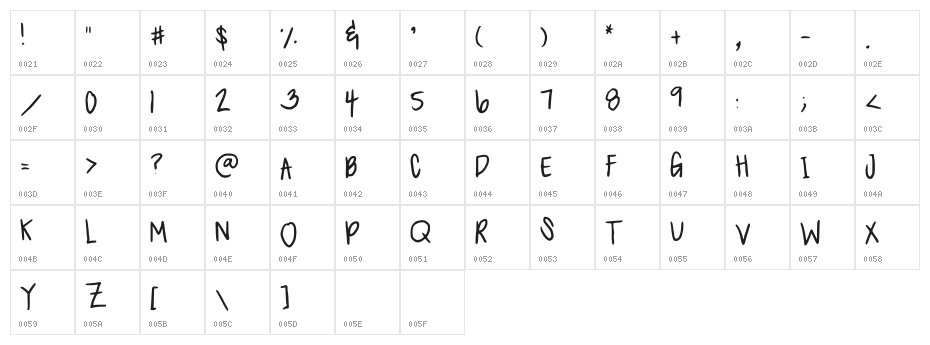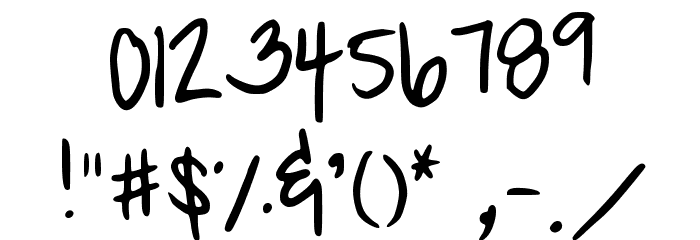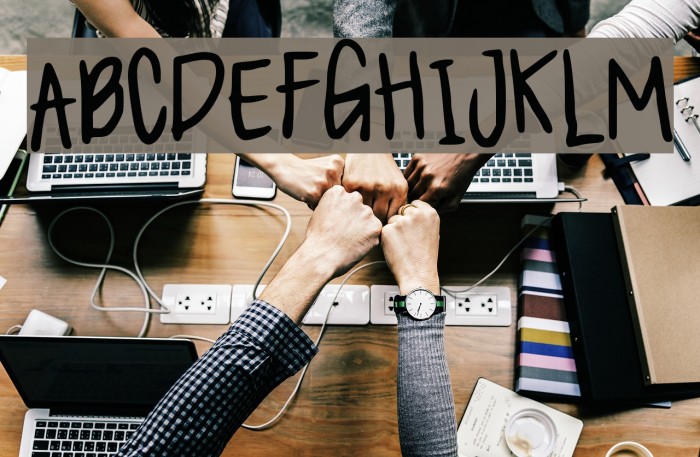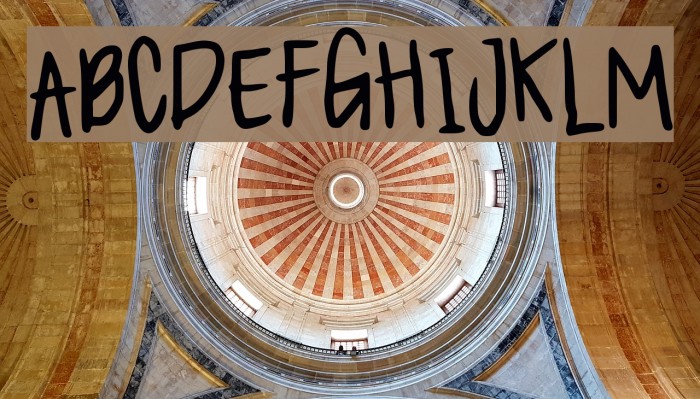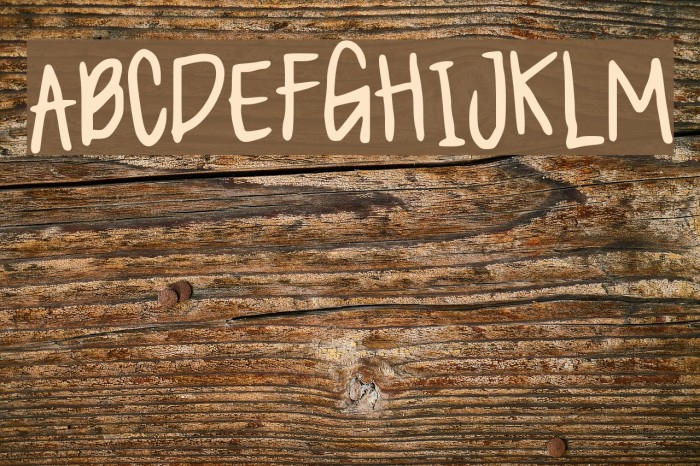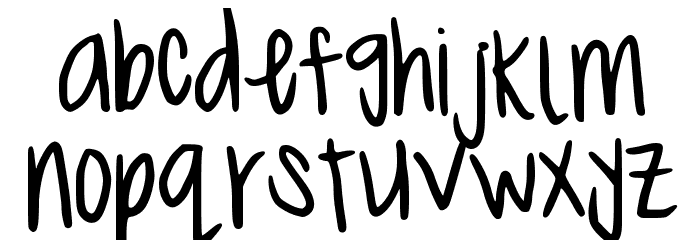
MeganHand Font
MeganHand Description
This font exudes a playful and informal vibe, characterized by its handwritten style that mimics casual penmanship. The letters are slightly irregular, adding a touch of authenticity and charm. The strokes are smooth and fluid, with a consistent thickness that maintains readability while conveying a relaxed tone. The uppercase and lowercase letters are distinct yet harmonious, and the numerals and special characters blend seamlessly with the overall aesthetic. This font is perfect for projects that require a personal touch, such as greeting cards, invitations, or creative branding.
| Overall Style | Casual, Playful |
| Use Case | Headlines, Logos, Creative projects |
| Proposed Projects | Ideal for greeting cards, invitations, personal branding, and creative projects. |